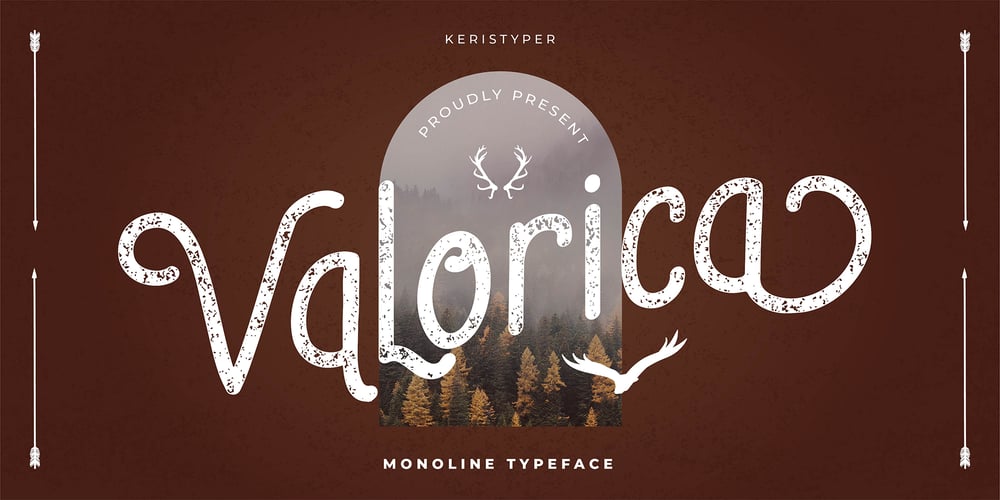
Valorica Font Family was designed by Tezar Tantular and published by Keristyper Studio. Valorica contains 1 styles and family package options. Valorica is a modern design with a vintage feel. A monoline display font that combines classic & modern styles. This font is good for logo design, Social media, Movie Titles, Books Titles, short text even long text letters, and good for your secondary text font with sans or serif.Featured: OTF Standard Uppercase & Lowercase Numeral & Punctuation Multilingual : ä ö ü Ä Ö Ü ß ¿ ¡ Alternate & Ligature PUA encoded We recommend programs that support the OpenType feature and the Glyphs panel such as Adobe applications or Corel Draw. so you can use all the variations of the glyphs. Hope you enjoy our fonts!